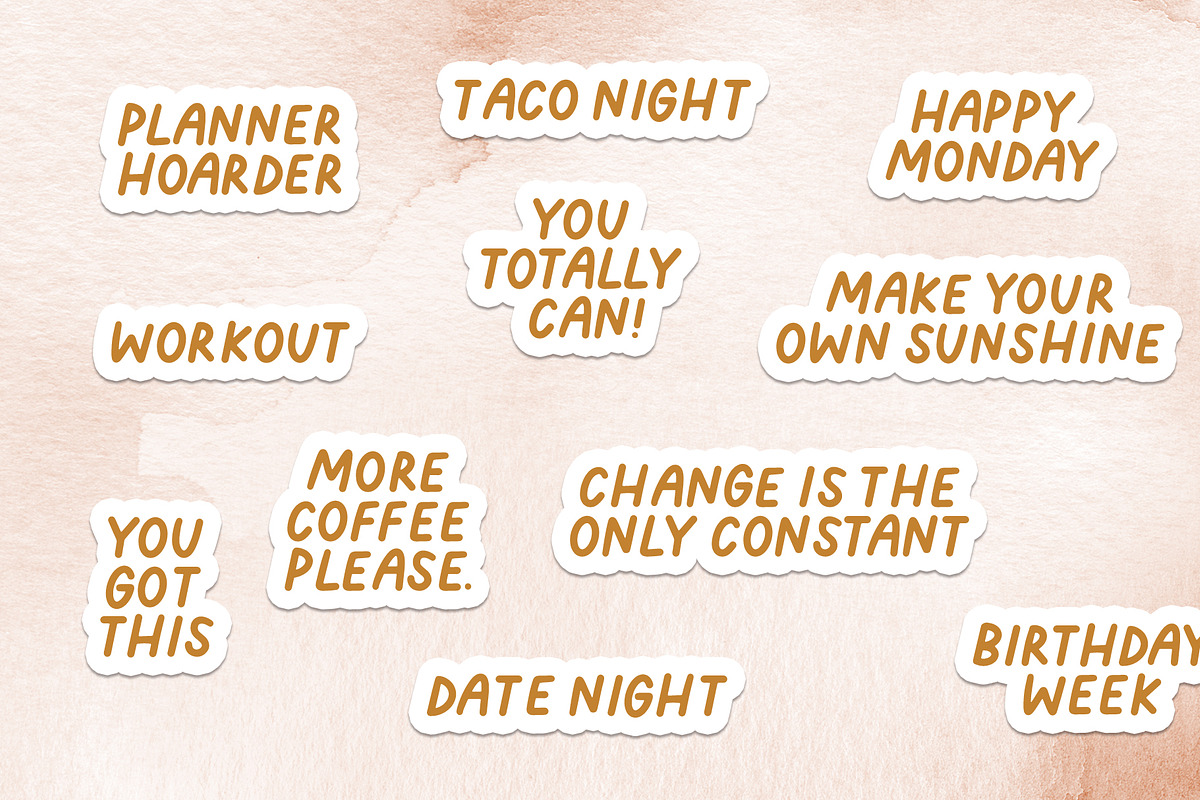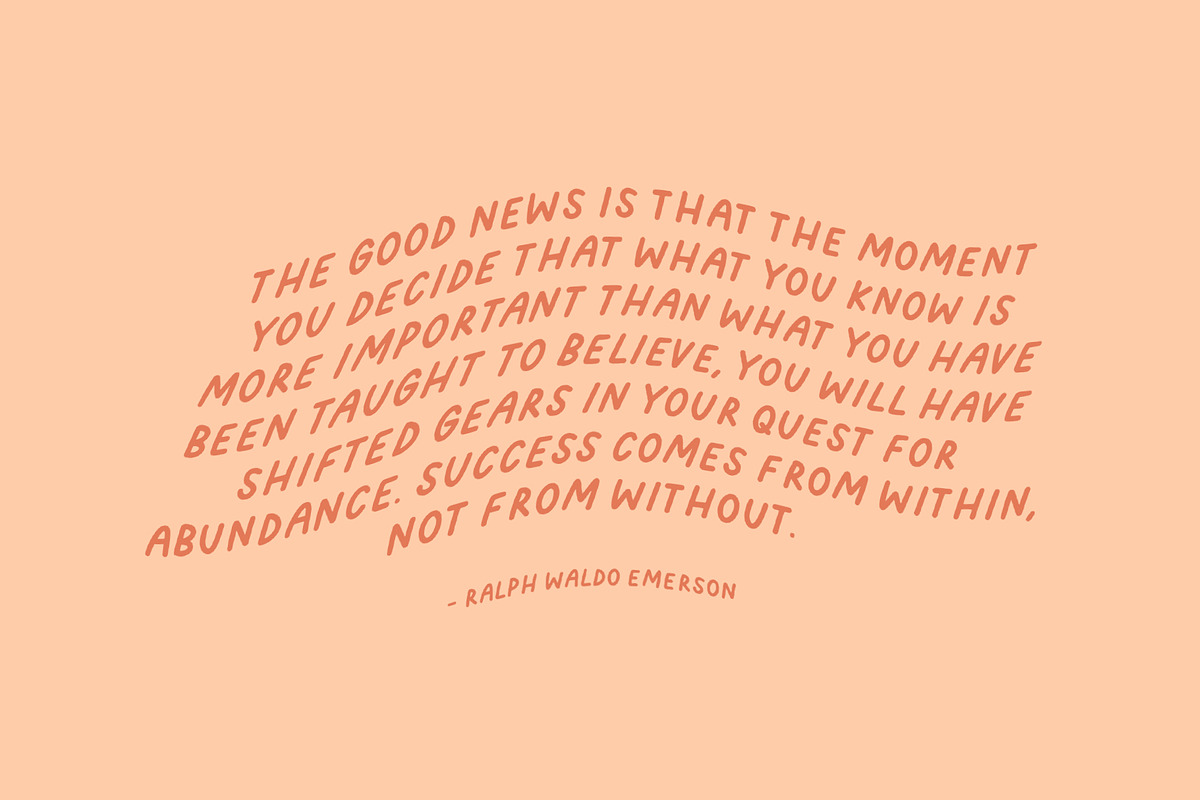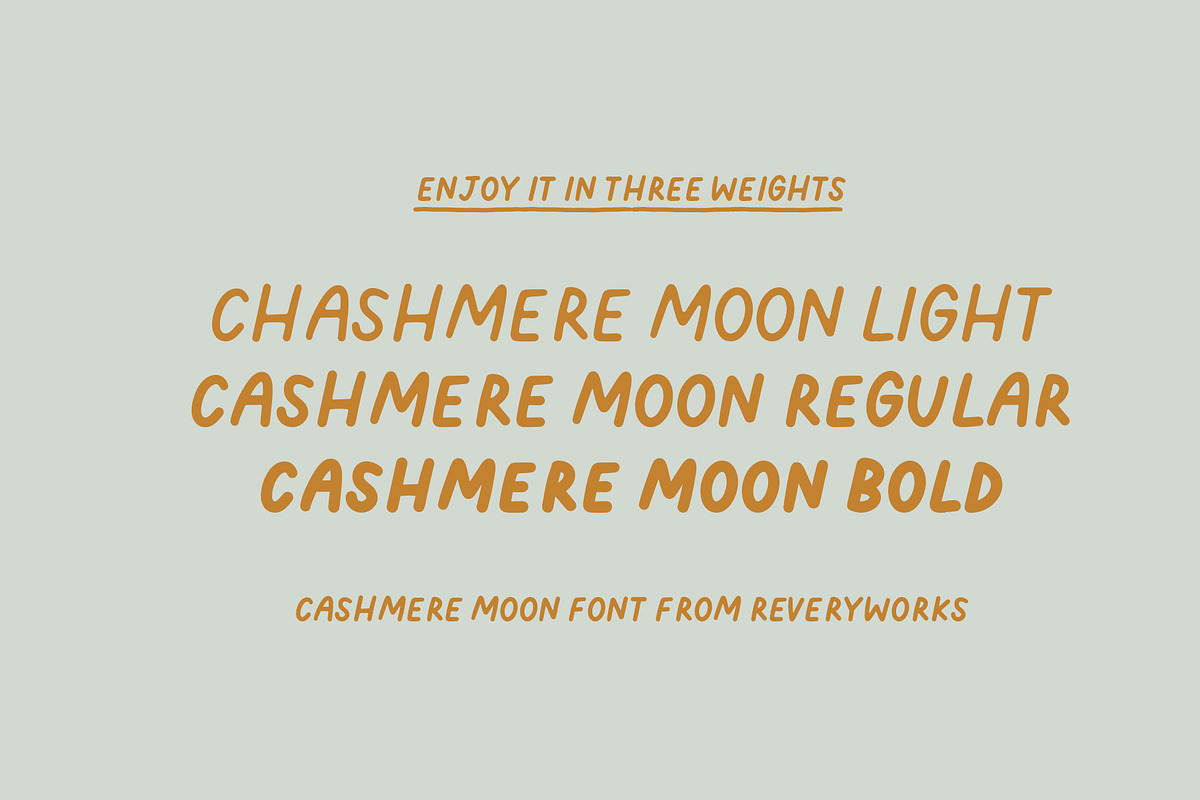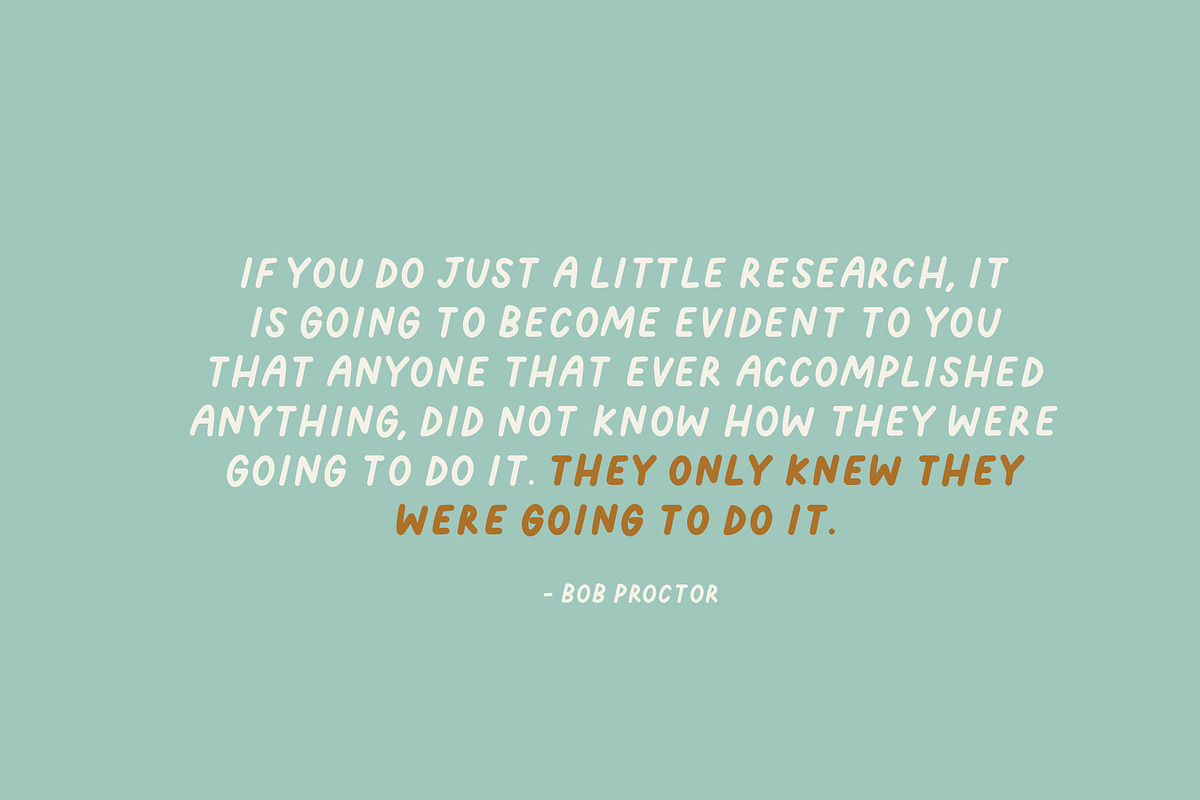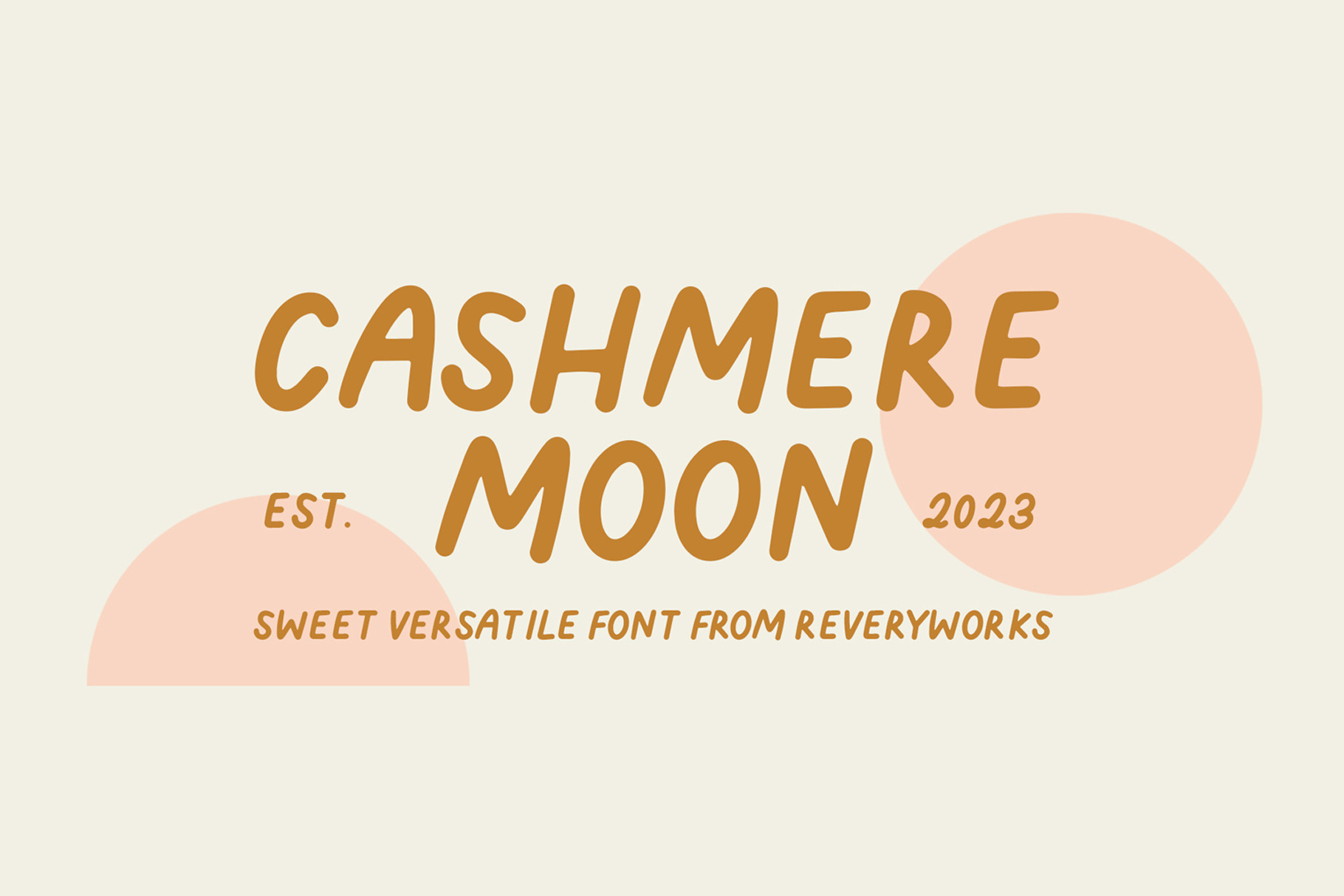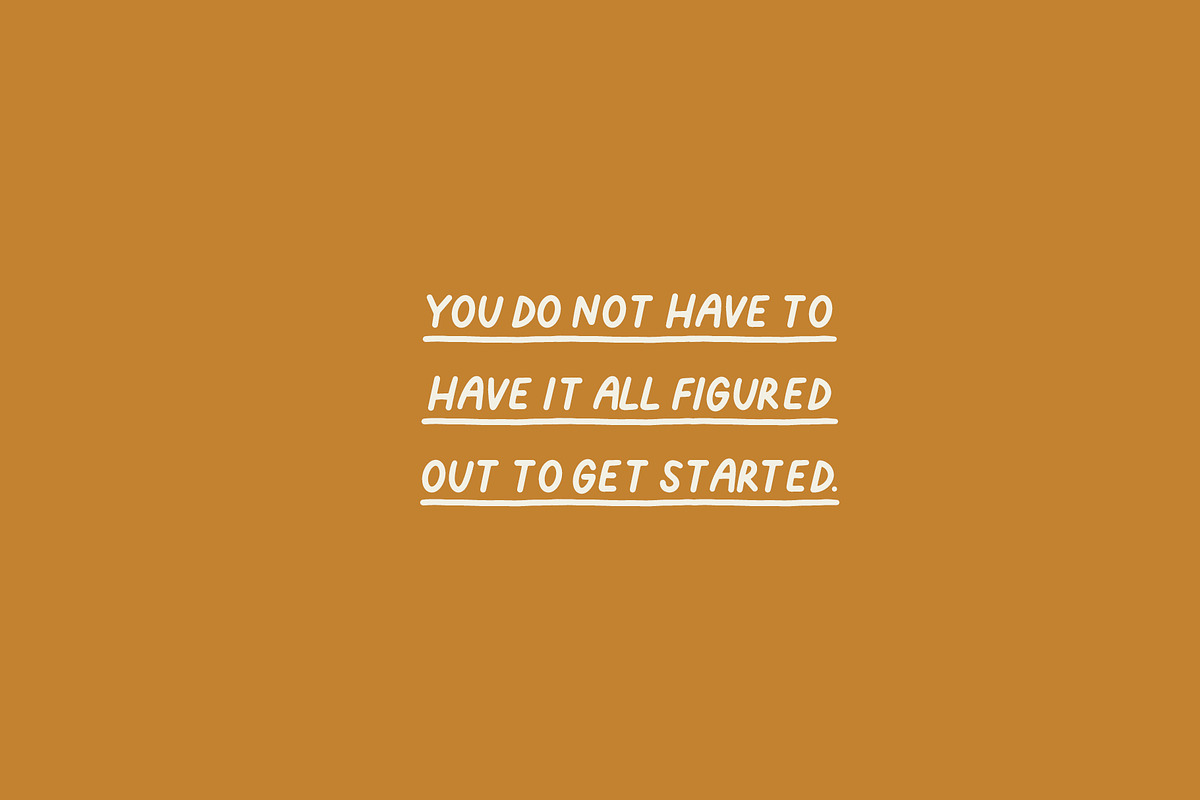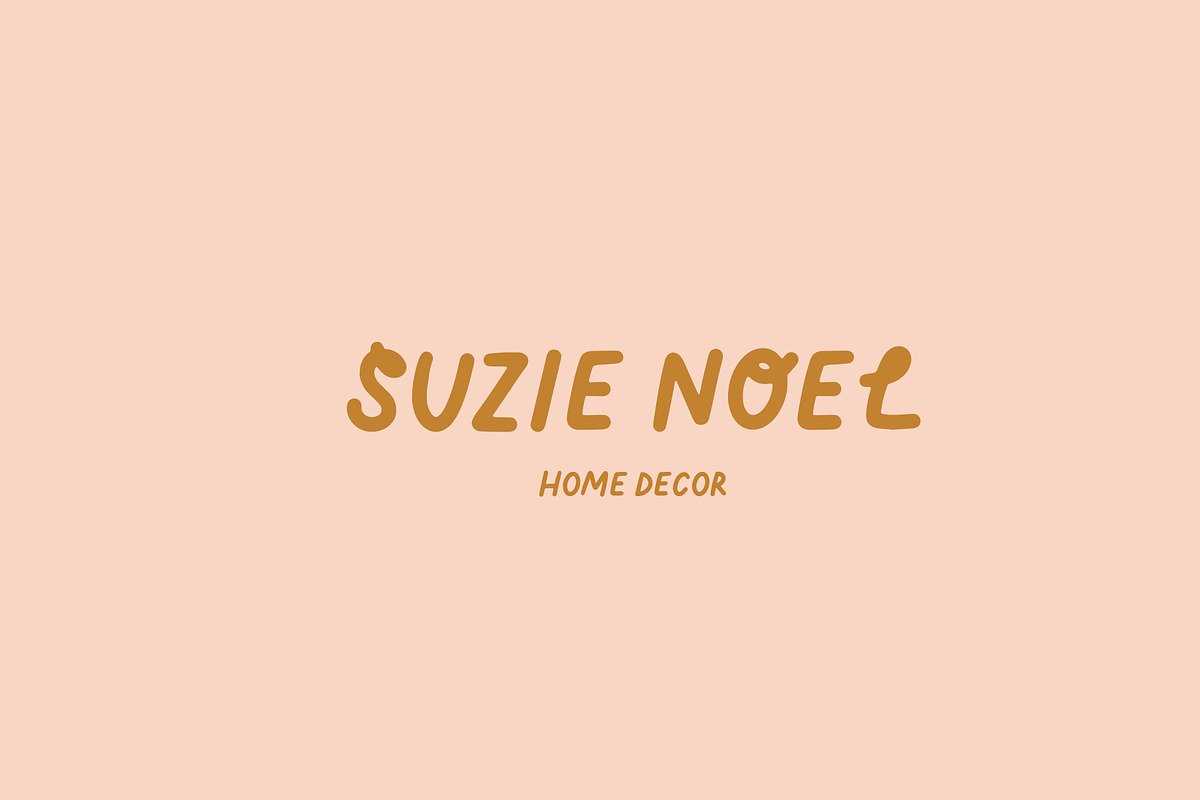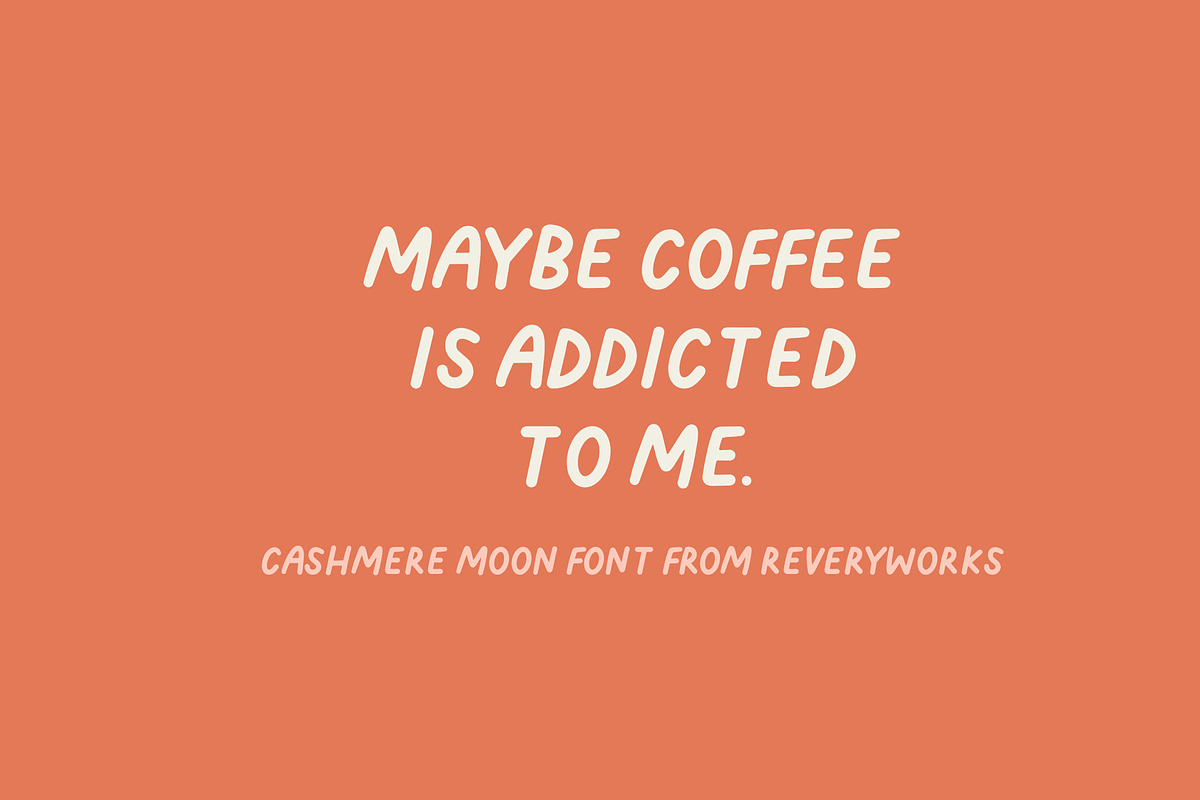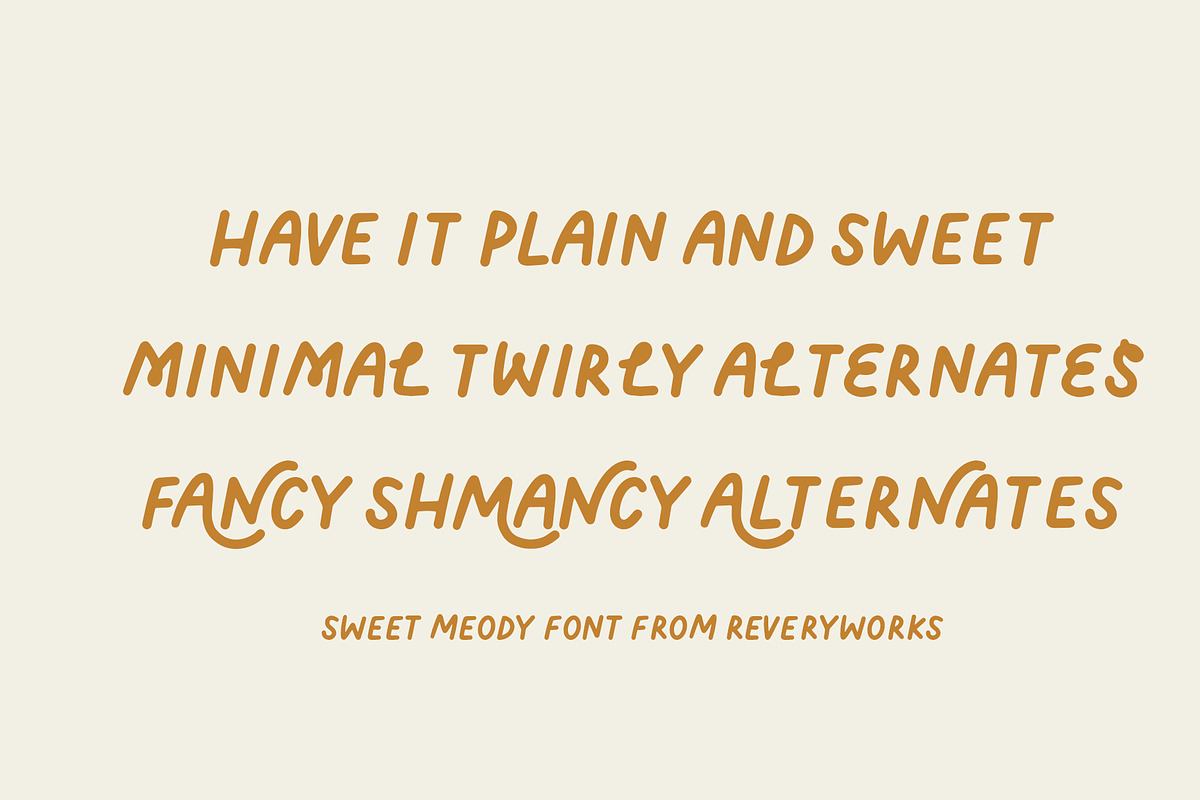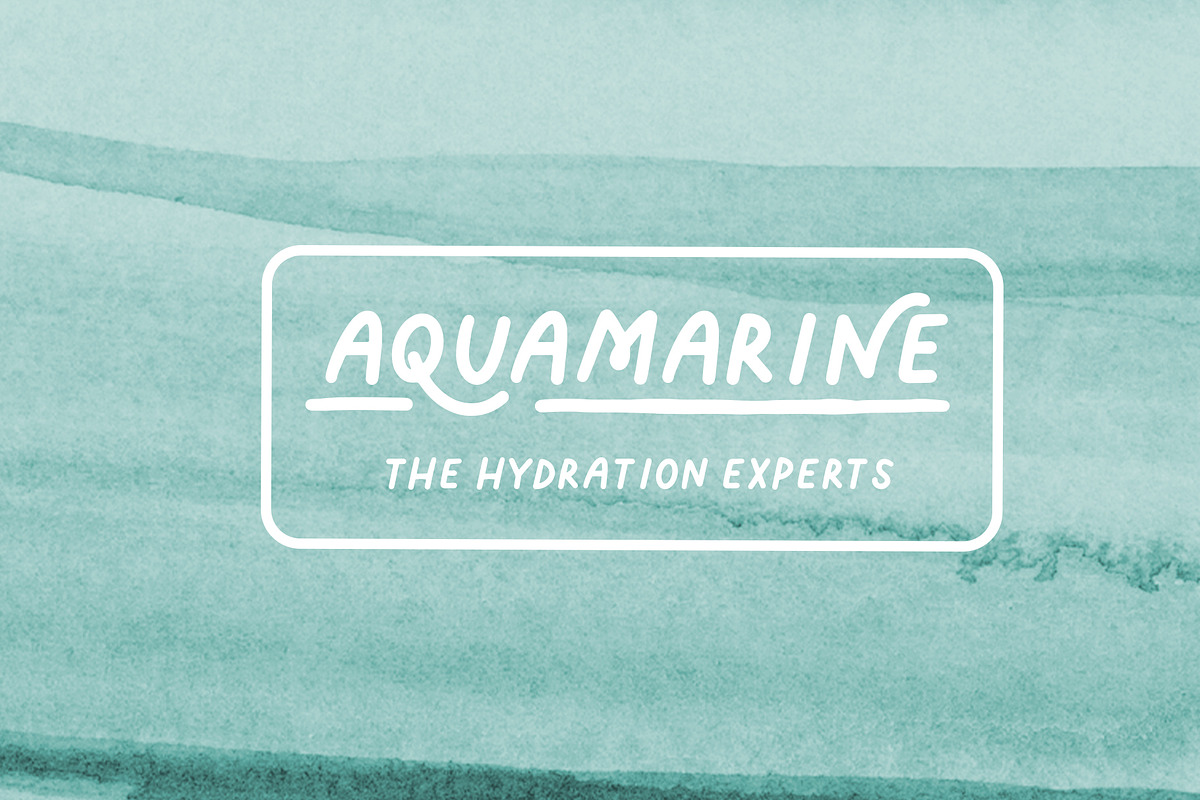
Cashmere Moon Sans (3 fonts)
Introducing Cashmere Moon – A sweet and versatile handwritten sans that is loaded with features! Here are some tips on some of the countless ways you can use this cutie!
- Includes Minimal Curly Twirly Alternates (UPPER KEYSTROKES)
- Includes fancy shmancy alternate letters (UPPER KEYSTROKES)
- Includes 3 weights: light, regular and bold!
- Play around with the spacing to achieve different effects
- Use _ to insert hand drawn underline
- Looks fantastic in texts and paragraphs